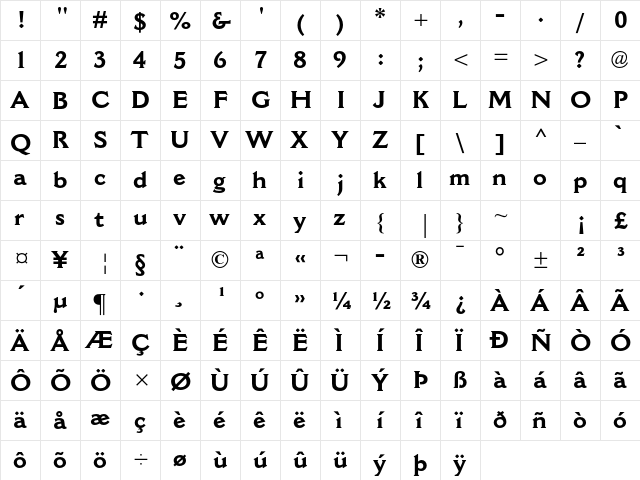
Cantoria MT Std Bold
Bold ·  Ron Carpenter ·
Design Context for Cantoria MT Std Typeface
Cantoria MT Std takes a measured approach to typography — its balanced proportions and neutral character make it a reliable workhorse for both digital and print work. The heavy weight commands attention and anchors typographic hierarchies.